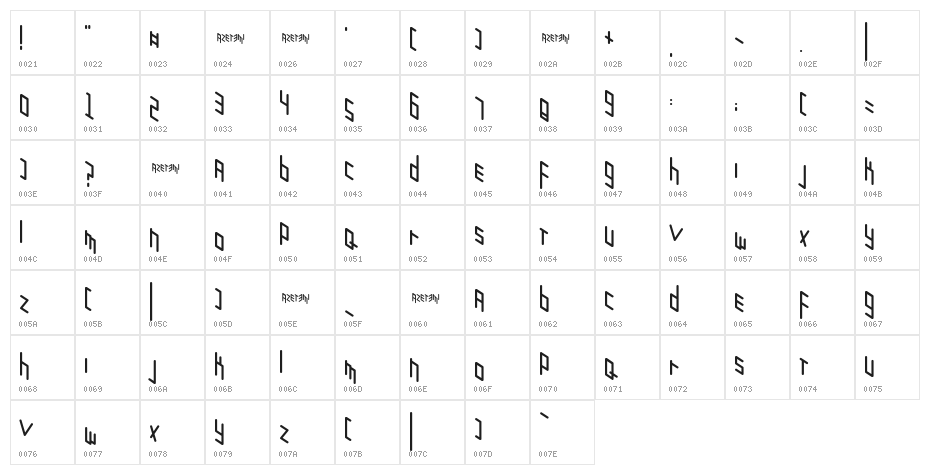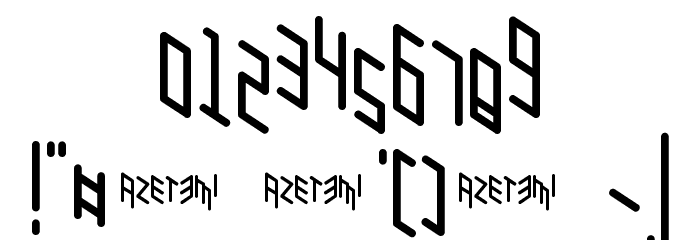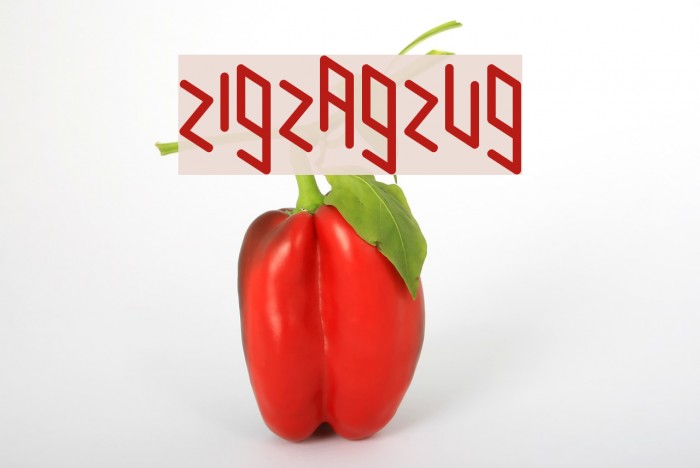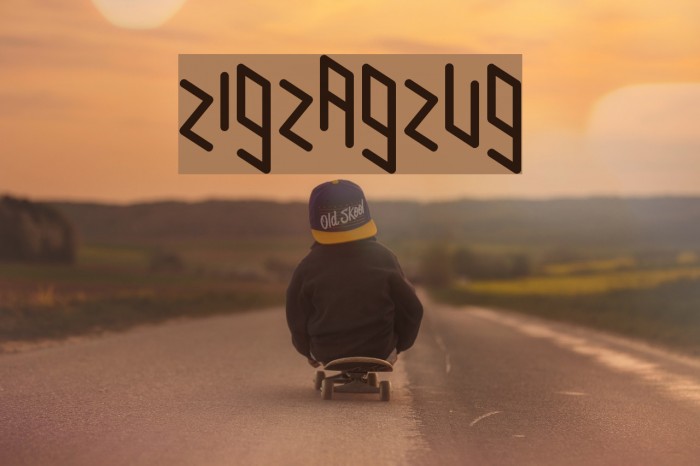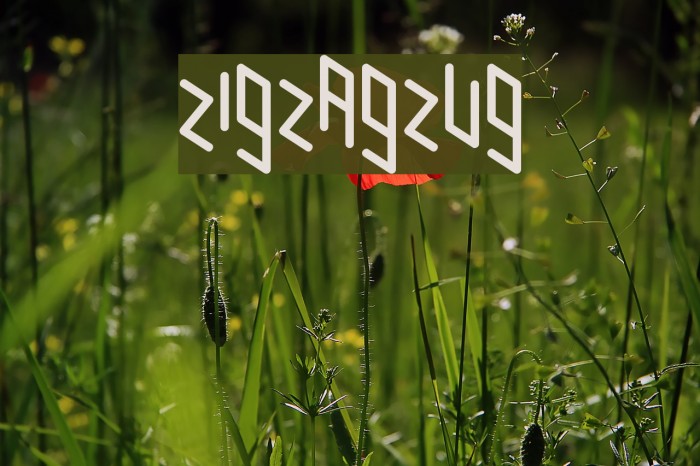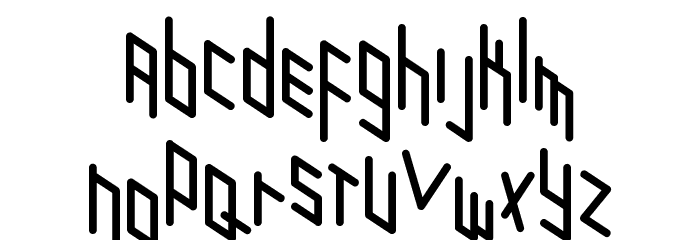
Zigzagzug Font
Zigzagzug Description
This font features a unique and modern design with a geometric and angular style. The characters are composed of straight lines and sharp angles, giving it a futuristic and digital appearance. The uppercase and lowercase letters maintain a consistent height, creating a uniform look. The numbers and special characters follow the same angular theme, ensuring a cohesive design throughout. The font's distinct style makes it stand out, making it suitable for creative and tech-oriented projects. Its bold and striking appearance is eye-catching, making it ideal for headlines and titles.
| Proposed Projects | Ideal for tech branding, video game titles, futuristic posters, and digital media. |